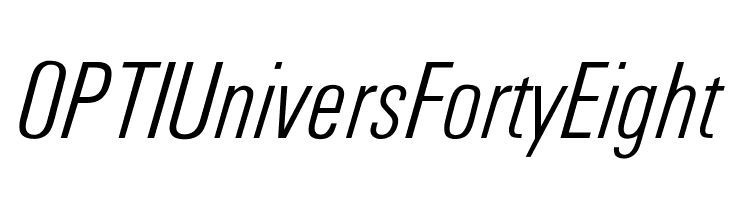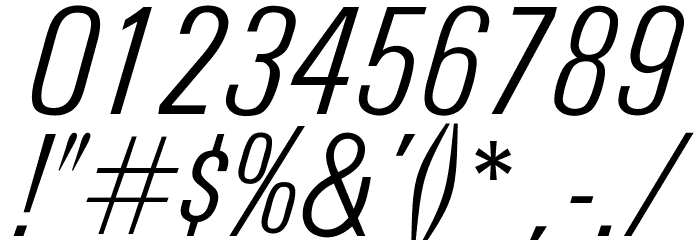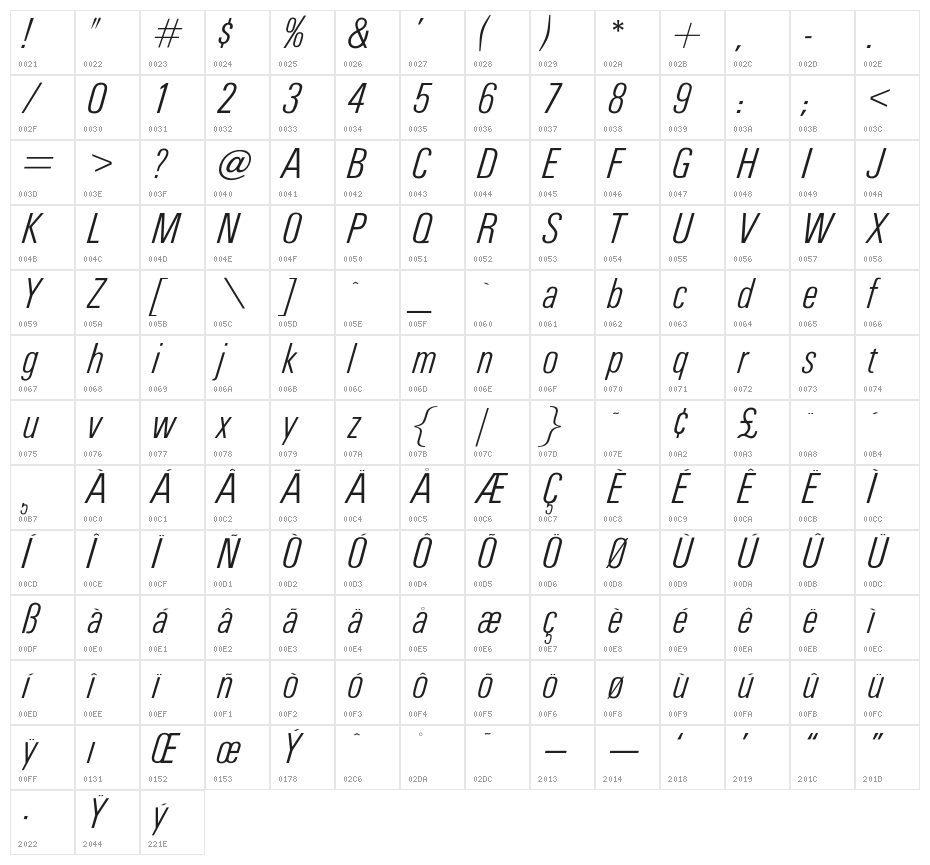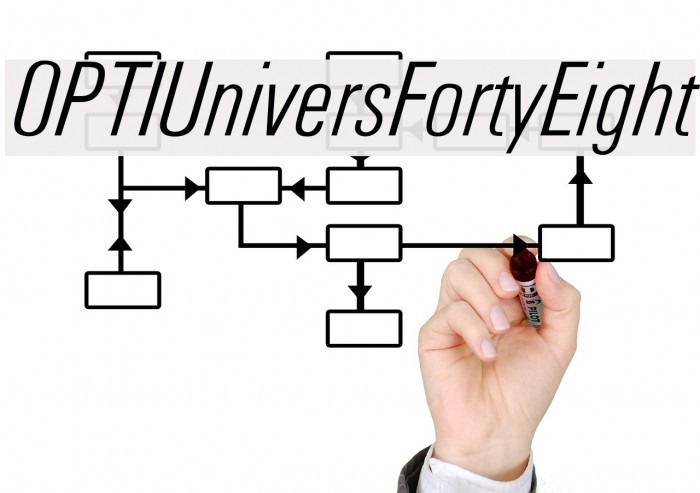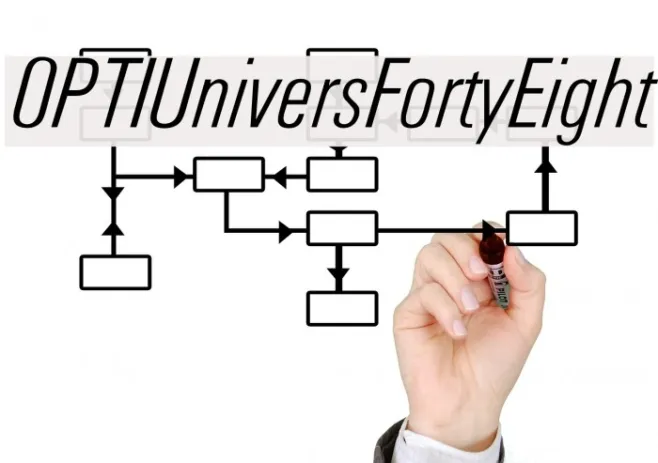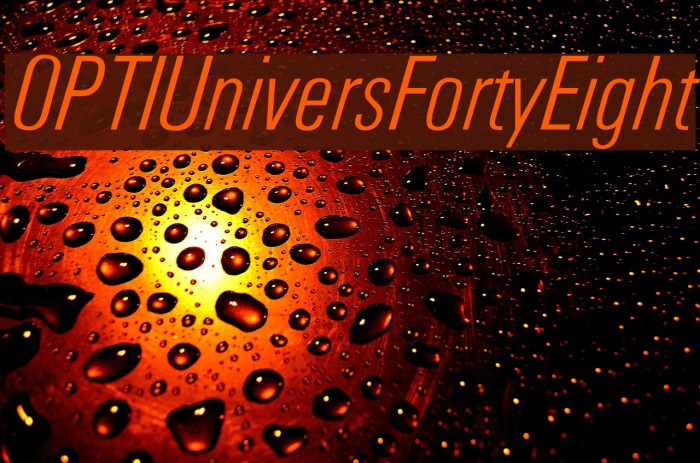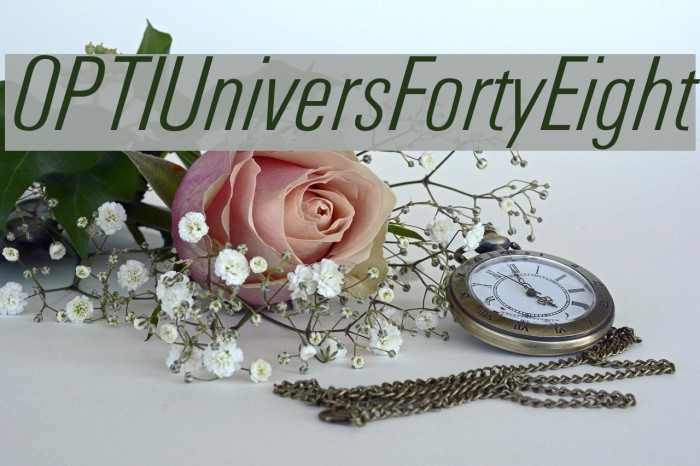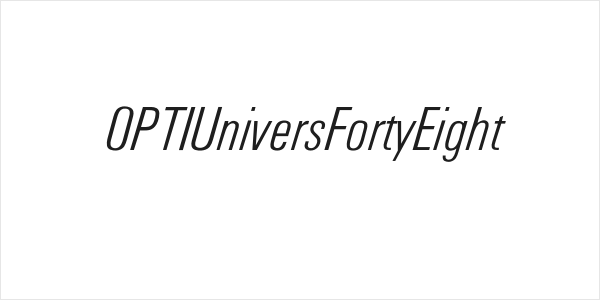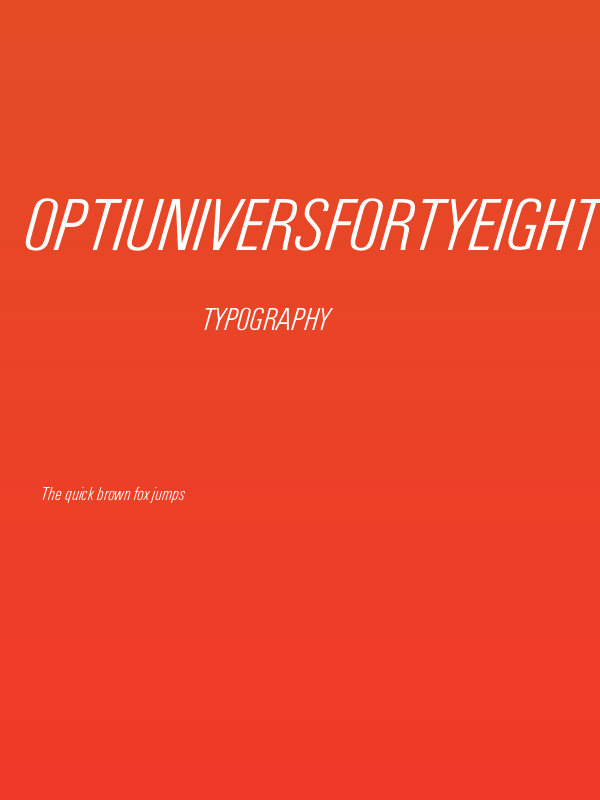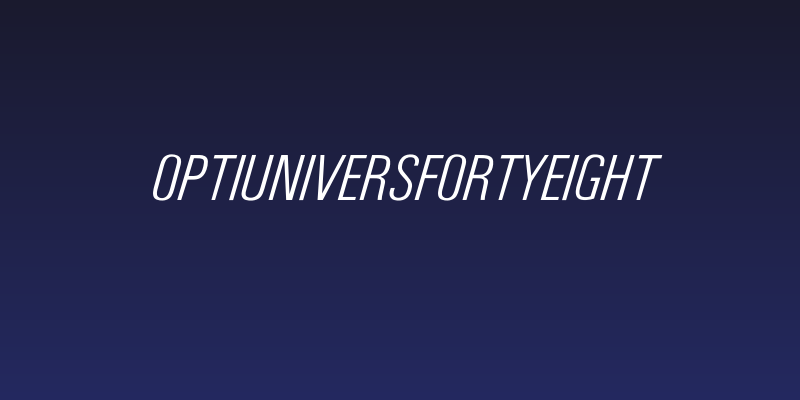
OPTIUniversFortyEight Font
OPTIUniversFortyEight Description
This font exhibits a sleek and modern design with a distinct slant, giving it an italicized appearance. The characters are elongated and narrow, contributing to a condensed look. The strokes are consistent in thickness, providing a uniform and clean aesthetic. The uppercase and lowercase letters maintain a cohesive style, while the numerals and special characters integrate seamlessly. This font's design is both professional and stylish, making it suitable for various applications.
| Use Case | Headlines, Logos, Advertising |
| Proposed Projects | Ideal for branding, advertising, and editorial design projects where a modern and professional look is desired. |